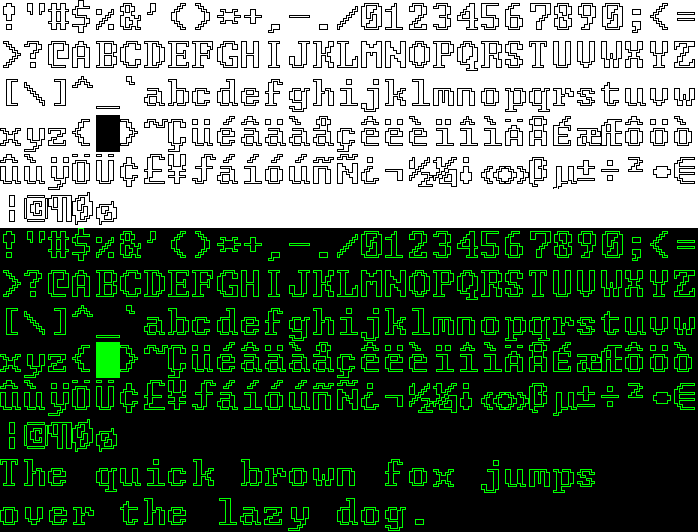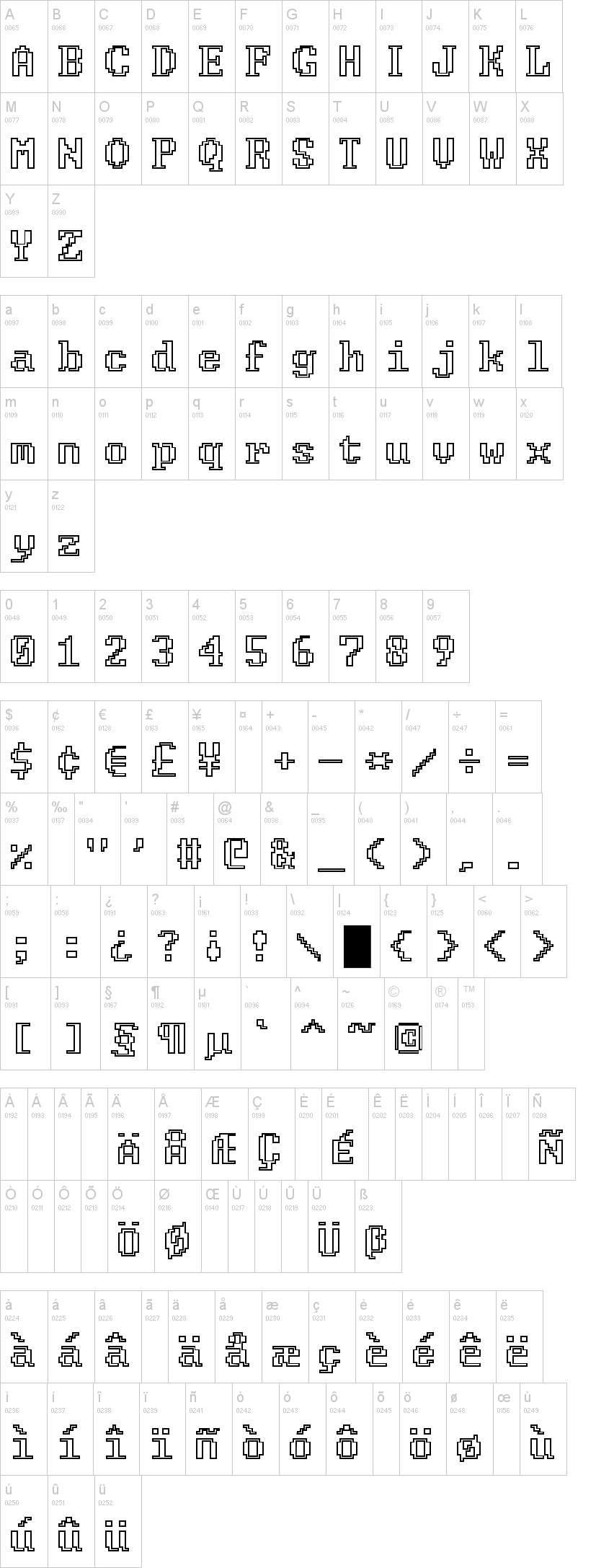
Note of the authorFixCystNeon is a retro display face which, at certain point sizes, can create seemless white or coloured text on a black background. The character guide and sample text shown here is at nine point size. Please refer to the read me document for specific instructions about enabling text with the black background.